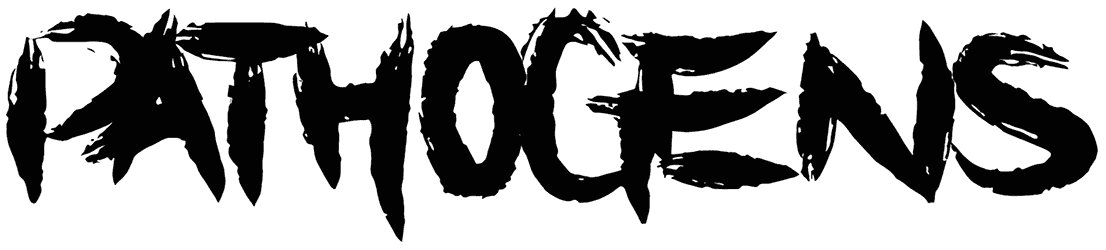
Pathogens Font
For those who love ghost stories and hunting, Pathogens is a font that can implement the scary feeling of the rule of witches and goblins in your projects. This horror font gives an ominous flair to your works and brings…
For those who love ghost stories and hunting, Pathogens is a font that can implement the scary feeling of the rule of witches and goblins in your projects.
This horror font gives an ominous flair to your works and brings new ideas to your mind, which are not noticeable without numbers and small letters. So, if you are interested in brush fonts, this strange font can stand out on book covers, headlines, and posters.